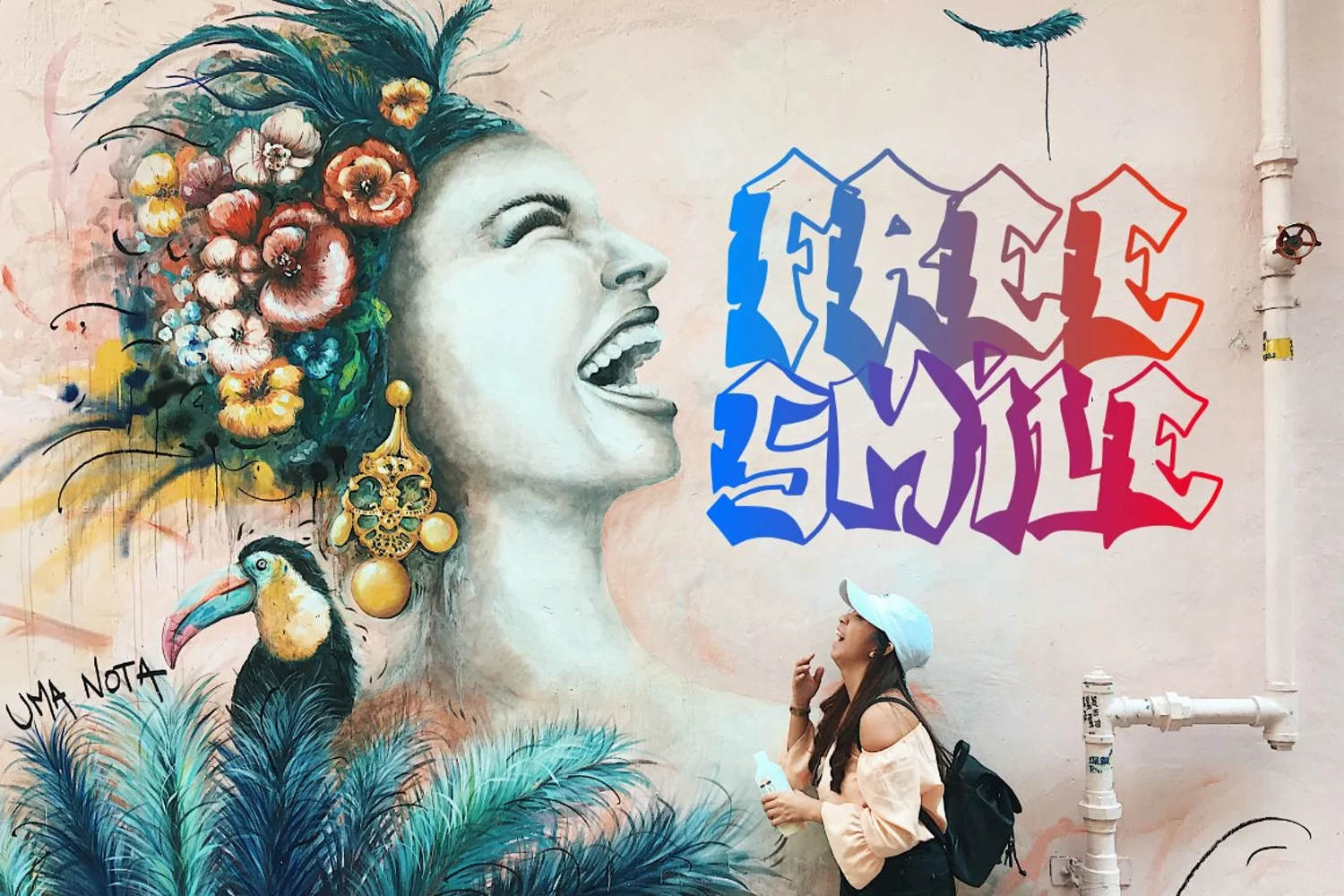
Simple stylish
GRAFFITI STOKE - Graffiti Display Font that contain lowercase, uppercase, symbol, and also support multi language. There’s a lot ligatures in this font. This Font also comes with ligatures, alternates and many more. this font suitable for fashion, branding, catalog and other design what you want.